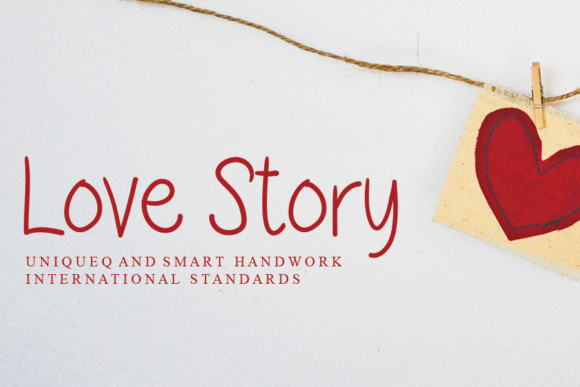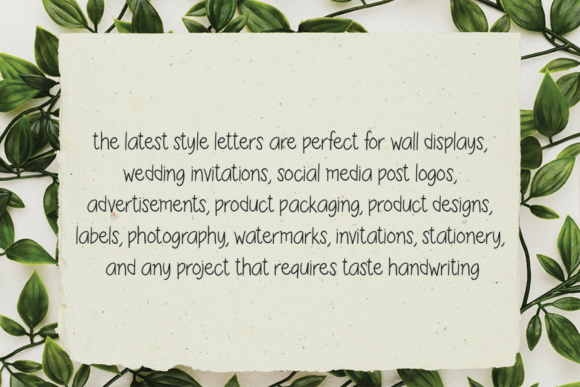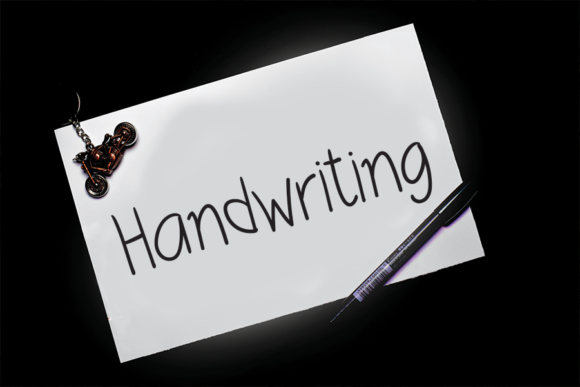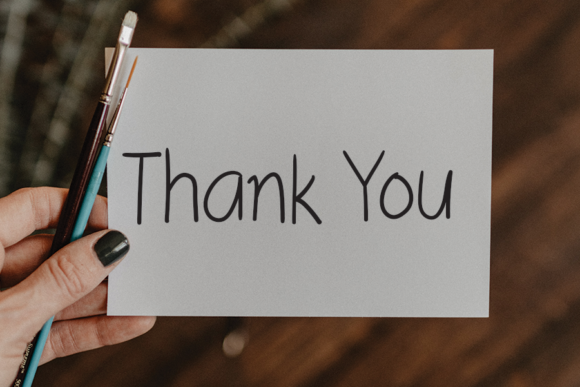
Bolleanita Font: The Perfect Addition to Your DIY Projects
Are you a designer, crafter, or DIY enthusiast looking for a unique and gorgeous font to bring your projects to life? Look no further than Bolleanita Font! This casual handwritten font is the perfect addition to any DIY project, adding a touch of personality and whimsy to your creations.
What is Bolleanita Font?
Bolleanita Font is a beautiful, hand-written typeface that is perfect for a variety of DIY projects. From crafting and scrapbooking to blogging and social media, this font is sure to add a personal touch to your work. With its casual, laid-back vibe, Bolleanita Font is ideal for anyone looking to add a bit of whimsy and charm to their projects.
Features of Bolleanita Font
So, what makes Bolleanita Font so special? Here are just a few of its key features:
- Handwritten style: Bolleanita Font is a genuine handwritten font, giving it a unique and personal feel.
- Casual and laid-back: This font has a relaxed, casual vibe that’s perfect for DIY projects and crafts.
- Unique and distinctive: Bolleanita Font is a one-of-a-kind typeface that’s sure to stand out from the crowd.
- Easy to read: Despite its handwritten style, Bolleanita Font is easy to read and understand, making it perfect for use in a variety of projects.
Uses for Bolleanita Font
So, what can you use Bolleanita Font for? The possibilities are endless! Here are a few ideas to get you started:
- DIY crafts: Use Bolleanita Font to add a personal touch to your DIY crafts, such as scrapbooking, card making, and journaling.
- Blogging and social media: Add a bit of personality to your blog posts and social media updates with Bolleanita Font.
- Sign making: Use Bolleanita Font to create unique and eye-catching signs for your home or business.
- Paper crafting: Bolleanita Font is perfect for paper crafting projects, such as card making, gift tags, and paper flowers.
Tips for Using Bolleanita Font
Here are a few tips for using Bolleanita Font in your projects:
- Use it sparingly: Bolleanita Font is a statement font, so use it sparingly to add emphasis and interest to your projects.
- Pair it with other fonts: Bolleanita Font pairs well with a variety of other fonts, so don’t be afraid to experiment and find the perfect combination for your project.
- Experiment with colors: Bolleanita Font looks great in a variety of colors, so don’t be afraid to experiment and find the perfect hue for your project.
In conclusion, Bolleanita Font is a gorgeous and unique typeface that’s perfect for DIY projects, crafts, and more. With its casual, handwritten style and easy-to-read design, Bolleanita Font is sure to add a personal touch to any project. So why wait? Download Bolleanita Font today and start bringing your DIY projects to life!